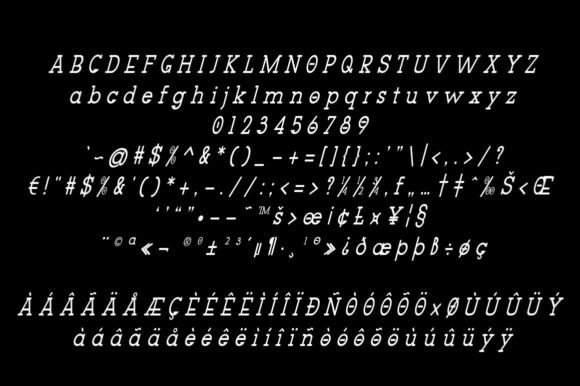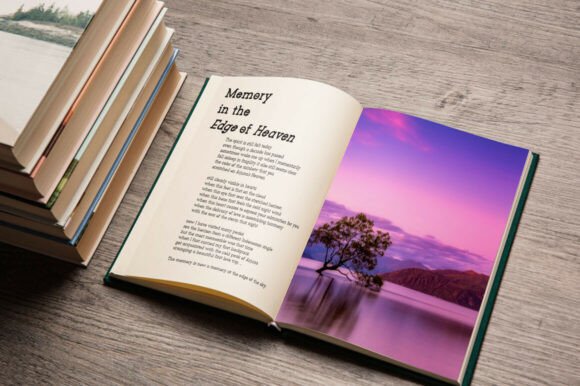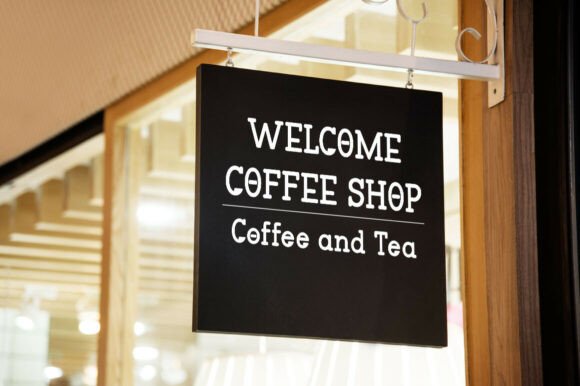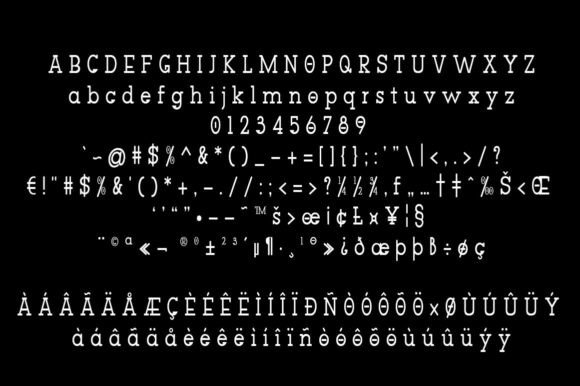
I still remember the frustration of working on a project, hours spent crafting the perfect layout, only to realize that the font I was using just wasn’t cutting it. The client wanted something that exuded professionalism, yet had a touch of modern flair. I scoured the internet, tried out countless fonts, but nothing seemed quite right. That was until I stumbled upon Beuton Regular Font. ✨
Beuton Regular Font: A Game-Changer for Designers
Beuton is a modern slab-serif family that has been meticulously crafted to command attention while maintaining an air of sophisticated restraint. Its sturdy structure makes it an ideal choice for architectural branding, tech-focused editorial layouts, high-impact headlines, and contemporary web design. With both Regular and Italic weights, Beuton is a versatile powerhouse designed for creators who demand precision in their typography.
• ✅ Timeless aesthetic: Beuton delivers a structural aesthetic that feels both established and innovative.
• ✅ Versatility: From vibrant red against a dark brick texture to clean, professional print, Beuton adapts seamlessly.
• ✅ Precision: Its sturdy structure and refined clarity make it perfect for high-impact headlines and editorial layouts.
• ✅ OpenType features: Beuton supports a range of OpenType features, including glyphs and stylistic alternates, giving designers more creative control.
While Beuton is an exceptional font, there are a few minor quirks to be aware of: 🤔
• ⚠️ Pairing challenges: Beuton’s bold structure can sometimes overpower other fonts in a layout, requiring careful pairing.
The Story Behind Beuton
Beuton was designed with the goal of creating a font that embodies both industrial strength and refined clarity. Its creator, a renowned type designer, drew inspiration from the clean lines and structural integrity of modern architecture. The result is a font that feels both established and innovative, perfect for designers seeking a timeless aesthetic.
What is Beuton Regular Font best used for? Beuton is ideal for architectural branding, tech-focused editorial layouts, high-impact headlines, and contemporary web design.
Is Beuton suitable for body text? While Beuton can be used for body text, its bold structure makes it more suitable for headlines and titles.
Does Beuton support OpenType features? Yes, Beuton supports a range of OpenType features, including glyphs and stylistic alternates.